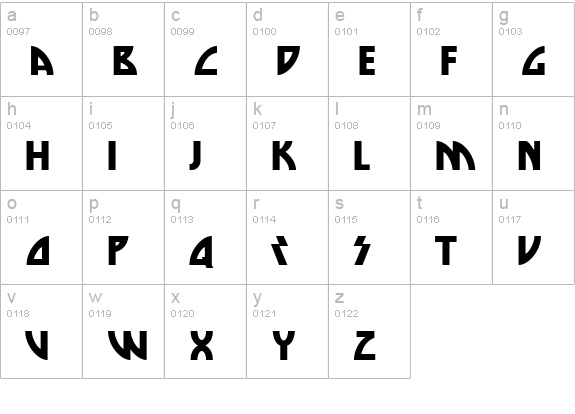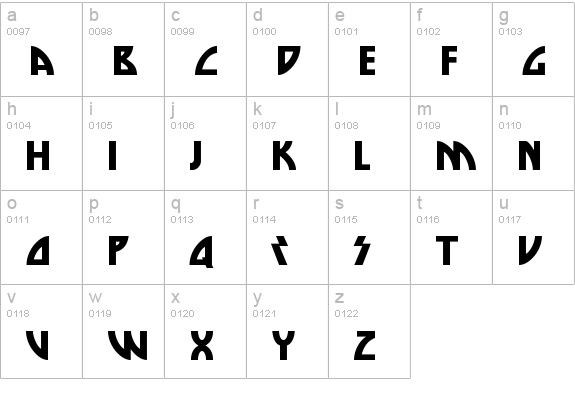
Die Nasty font is a bold and edgy typeface that exudes a rebellious and daring vibe. With its sharp angles and rough edges, this font is perfect for making a statement and standing out from the crowd. Whether you're designing a poster, logo, or any other creative project, Die Nasty font will add a touch of attitude and personality. And the best part? Die Nasty font is completely free to download at FontsMarket.com. So go ahead and unleash your creativity with this unique and eye-catching font that is sure to make your designs pop!